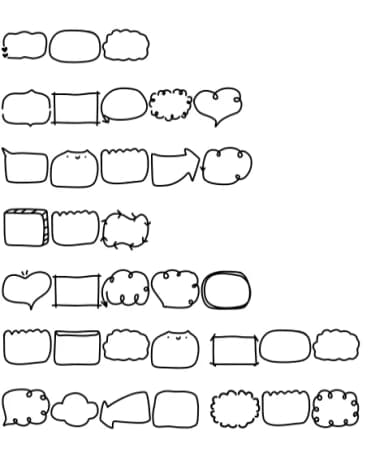
These speech bubble shapes bring a conversational, approachable feel to any design that needs visual punctuation or friendly callouts. Blank Speech Bubble 2, created by Foam-Design Store, offers a collection of empty speech bubble glyphs that function as decorative typographic elements rather than traditional letters. Built-in shape variety gives you different sizes and styles to work with across a single layout or composition, so there's flexibility before you even open the file.
Consider using it for greeting card inserts and message callouts, social media post graphics and announcement templates, DIY event signage for parties and product launches, custom sticker designs for small businesses, or even bullet point replacements in printed materials. Designers working on casual, playful projects find these shapes indispensable for breaking up blocks of text, guiding the reader's eye through a design, or adding a hand-drawn quality to digital layouts. The empty bubbles create natural space for handwritten notes, typed overlays, or layered graphics, making them flexible enough to adapt to your specific creative direction.
Blank Speech Bubble 2 Font is a versatile dingbats font that works for both headings and body text. Pair it with a contrasting sans-serif or serif font to add visual interest and a clear distinction between titles and body copy.